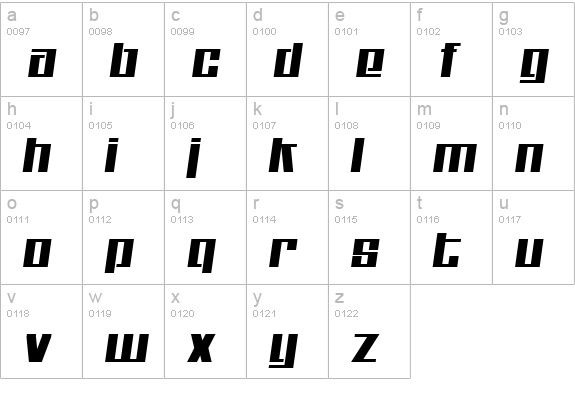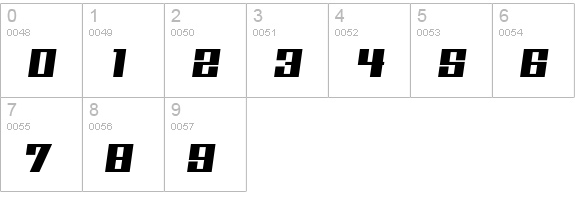
Kitchen police Font Details
Introducing Kitchen Police, a remarkable font that embodies the essence of culinary creativity and modern design. With its clean lines and bold strokes, this font exudes a sense of professionalism and sophistication, making it the perfect choice for any kitchen-related project. Kitchen Police is not only visually stunning, but it also offers an exceptional level of versatility. Whether you're designing a menu, creating a recipe book, or developing a food blog, this font will bring your culinary vision to life. Its timeless appeal will captivate your audience and leave a lasting impression. One of the most remarkable aspects of Kitchen Police is that it is free! That's right, this incredible font is freely available to download at FontsMarket.com. You can enhance your culinary creations without breaking the bank, allowing you to allocate your resources towards other essential aspects of your project. Not only is Kitchen Police free, but it also offers a vast range of characters and symbols, ensuring that you have everything you need to customize your designs. From elegant script variations to eye-catching display options, this font provides endless possibilities to elevate your kitchen-inspired creations. In addition to its stunning aesthetics and extensive character set, Kitchen Police is also incredibly easy to use. Its user-friendly design makes it accessible to both seasoned designers and novices alike. With just a few clicks, you can effortlessly incorporate this font into your project, saving you time and effort. So why wait? Unleash your culinary creativity today with Kitchen Police. Download this exceptional font for free at FontsMarket.com and let your kitchen-inspired designs take center stage. From restaurant branding to food packaging, this font will not only meet but exceed your expectations. Get ready to impress your audience with the captivating power of Kitchen Police!